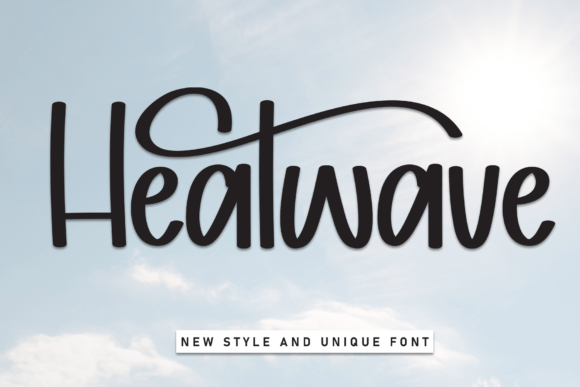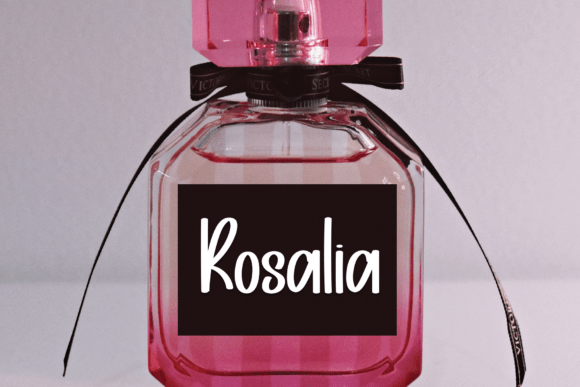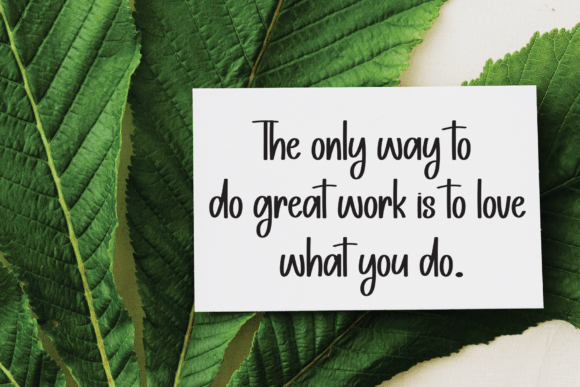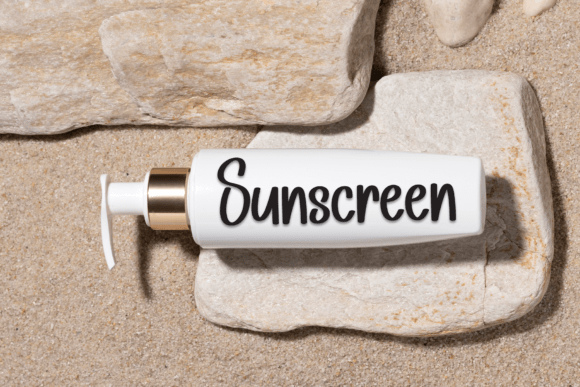
Heatwave Font
About the Heatwave Font
Introducing the Heatwave Font, a beautifully crafted typeface designed to elevate your creative projects. Heatwave is a casual and neat display font that radiates a fresh, friendly vibe. With clean lines and a relaxed structure, it’s perfect for packaging, posters, and social media graphics. The approachable design adds charm and clarity to projects while maintaining a polished appearance.
Heatwave excels in headlines, short slogans, and branding applications where a friendly yet sophisticated feel is desired. Its legibility shines in larger sizes, making it ideal for posters, signage, and even short-form social media copy. However, its casual nature makes it less suitable for body text or UI elements requiring high readability at smaller sizes.
Pairing Heatwave with a clean sans-serif like Montserrat for body copy creates a balanced and professional aesthetic. For a more playful look, consider pairing it with a rounded geometric sans-serif such as Futura, or for a touch of elegance, a delicate script font like Great Vibes could work well.
Heatwave’s core personality is upbeat and approachable, yet refined. Brands targeting a younger demographic, promoting products with a casual yet high-quality feel (e.g., artisanal food, lifestyle brands, summer events), would find it particularly effective.
Heatwave Font Usage Examples
Heatwave Font Example